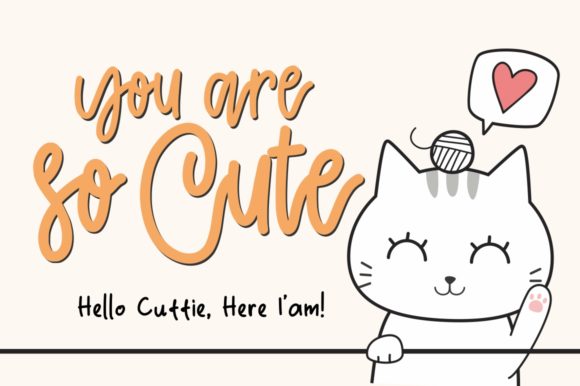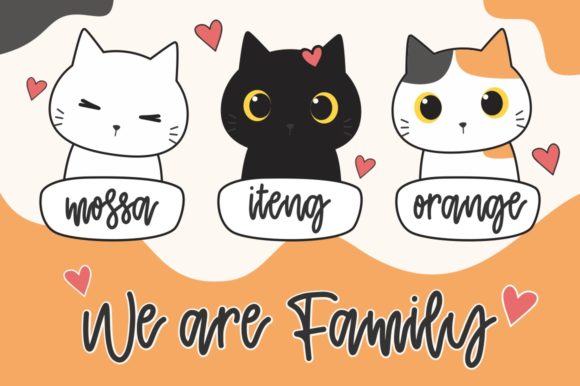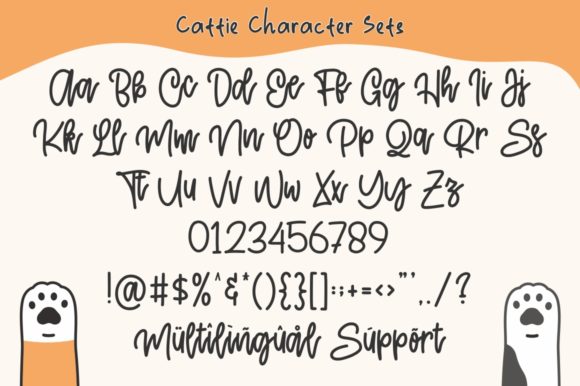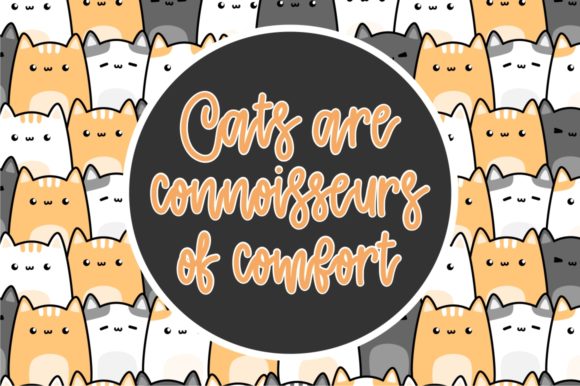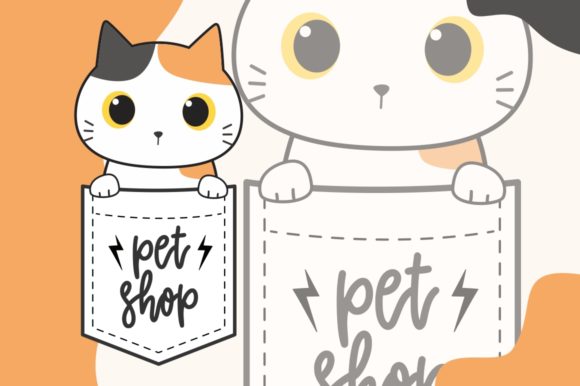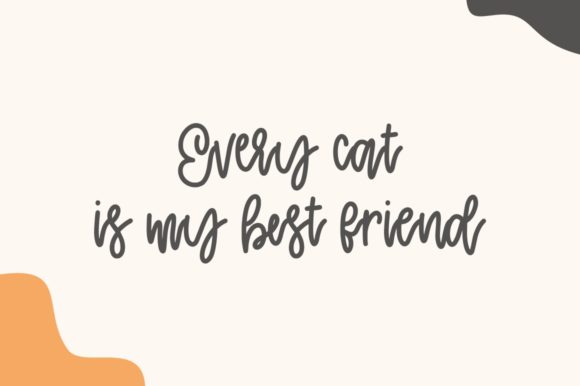
Crafting with Personality: The Allure of Cattie Font
Have you ever been working on a DIY project, pouring your heart and soul into every detail, only to feel like something’s missing? Maybe it’s the perfect font that brings it all together. That’s where Cattie Font comes in – a charming script that adds a touch of personality to your handmade creations.
Cattie Font is more than just a pretty face; it’s a way to give your projects an authentic, homemade feel that resonates with people. With its cute and endearing letters, it’s the perfect choice for designers looking to add a dash of whimsy to their work. Whether you’re creating invitations, labels, or anything in between, Cattie Font is sure to bring a smile to your face and a touch of warmth to your designs.
Cattie Font Key Features
- Unique Characteristics: The font features a unique, cursive script with a playful, whimsical feel, making it ideal for creative projects and designs.
- Glyph Set: Cattie Font includes a comprehensive set of glyphs, including Latin, Cyrillic, and Greek alphabets, as well as punctuation and special characters.
- Language Support: Cattie Font supports a wide range of languages, including English, Spanish, French, German, Italian, Portuguese, and many others.
- Font Weight and Style: Cattie Font is available in multiple weights, including Light, Regular, Medium, Bold, and Black, as well as an Italic and Oblique style.
Cattie Font Review
Overall, I think Cattie Font is a decent choice for a whimsical, cursive font. ✨ The font’s irregularities and quirky characteristics give it a unique charm that’s perfect for creative projects or branding that wants to stand out.
- ✨ The font’s ligatures and swashes add a touch of elegance and sophistication, making it suitable for invitations, wedding designs, or other special occasions.
- ✨ The cursive style is highly legible, even at smaller font sizes, which is a big plus for designers who need to balance aesthetics with readability.
However, there are some limitations to consider. ⚠️ The font’s irregularities can also make it difficult to use in certain contexts, such as body text or headings where consistency is crucial.
- ⚠️ The font’s variability in letter spacing and word spacing can make it challenging to achieve a uniform look, especially when working with long blocks of text.
- ⚠️ Some characters, like the “a” and “e”, can be quite ornate, which may not be suitable for projects where simplicity is key.
Overall, I’d say Cattie Font is a great choice for designers who want to add a touch of whimsy and personality to their projects. Just be mindful of its limitations and use it strategically to achieve the desired effect.
Cattie Font Practical Application Guide
Tips for Getting the Most Out of Cattie Font
To get the most out of Cattie Font, try the following:
- Use Cattie Font in conjunction with other fonts to create a unique and eye-catching design.
- Use Cattie Font in combination with bold and italic styles to create emphasis.
Cattie Font is perfect for:
<
- Choose a bright and pastel color scheme to match the whimsical tone of the font.
- Use Cattie Font as the main font for the invitation text, such as the wedding date and location.
- Add hand-drawn illustrations or watercolor elements to complement the font’s playful feel.
- Pair Cattie Font with a elegant serif font, such as Playfair Display, for a sophisticated contrast.
- Use a watercolor texture or a hand-drawn background to add a whimsical touch to the invitation.
- Choose a bold and bright color scheme to match the energetic vibe of Cattie Font.
- Use Cattie Font to display the quote itself, with a larger font size to make it the focal point.
3 Creative Project Ideas Using Cattie Font
Create a unique and eye-catching wedding invitation that showcases the playful and elegant nature of Cattie Font.
To use Cattie Font in this project:
Combining Cattie Font with other design elements:
Project 2: Cattie Font-infused Quote Posters
Create a series of inspirational quote posters that feature Cattie Font as the main attraction.
To use Cattie Font in this project:
Combining Cattie Font with other design elements: